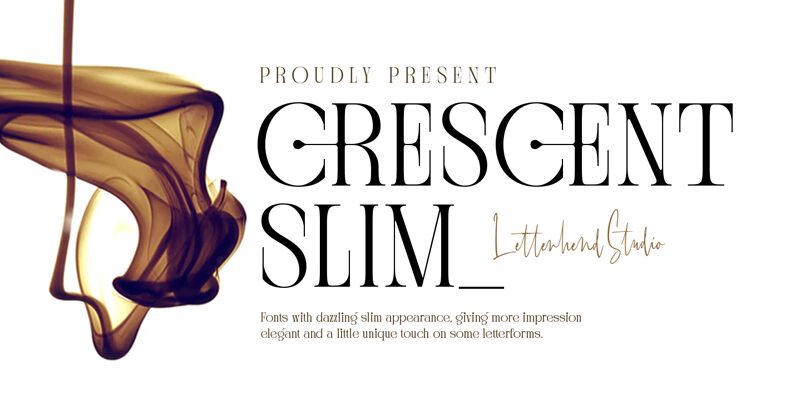
Crescent Slim, the newest semi-light serif typeface from Letterhend Studio, is a versatile addition to any designer's toolkit. With its elegant and refined lines, Crescent Slim is perfect for creating sophisticated branding materials, invitations, and editorial layouts. This font's slim width makes it ideal for use in smaller spaces like product packaging or social media graphics. Looking to add a touch of vintage charm to your next project? Crescent Slim's classic serifs will do just that. Whether you're designing for a luxury fashion brand or a cozy coffee shop, this font will add an air of sophistication and elegance to any project.